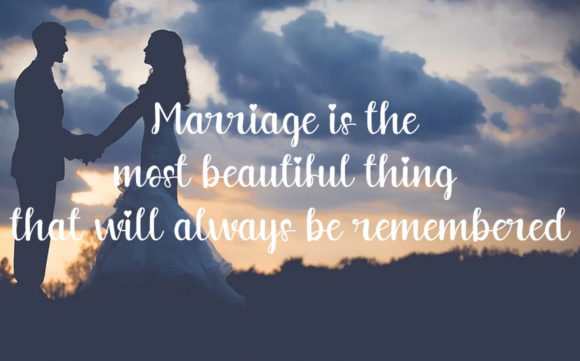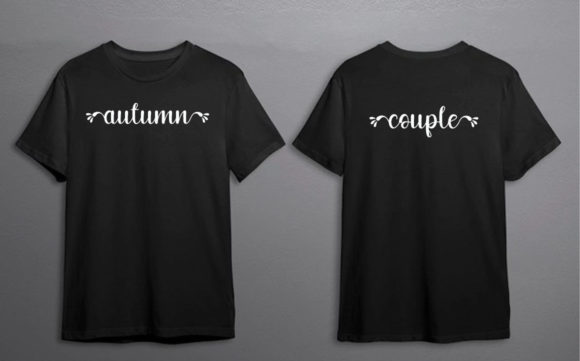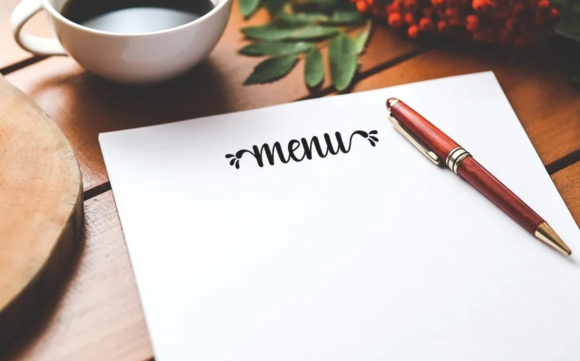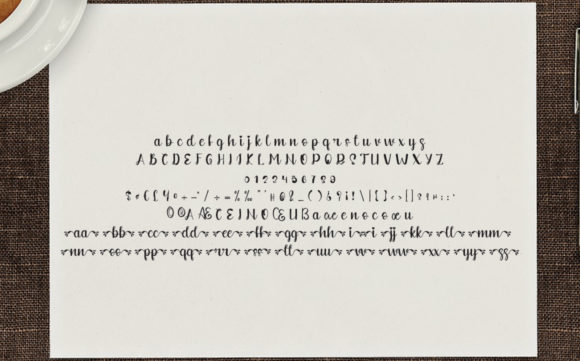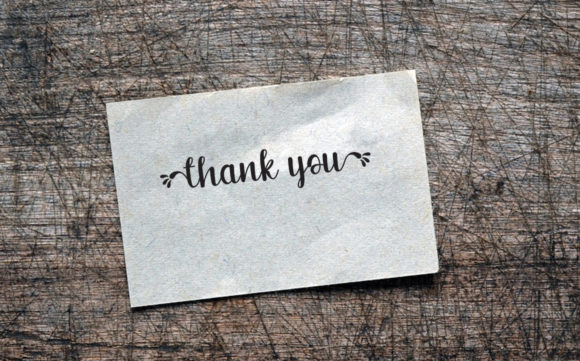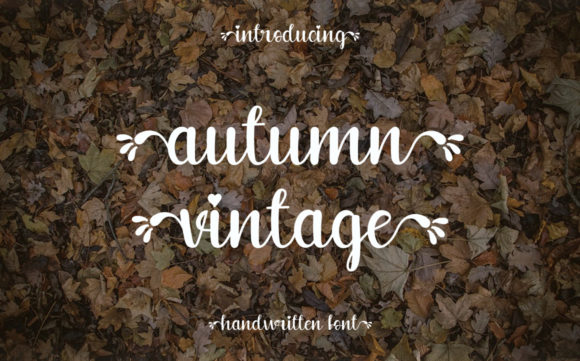
Introducing Autumn Vintage Font: Elevate Your Designs with Elegance
Are you a designer or crafter looking for a font that exudes sophistication and style? Look no further than Autumn Vintage Font, a stunning handwritten font that is sure to become a favorite in your collection. With its perfect blend of classic calligraphic influences and modern freshness, this font is ideal for a wide range of design projects.
The Beauty of Autumn Vintage Font
Autumn Vintage Font is a masterfully designed font that boasts an exquisite, elegant feel. Its handwritten style is reminiscent of traditional calligraphy, yet it has a contemporary edge that makes it perfect for modern designs. The font’s unique charm lies in its ability to evoke a sense of nostalgia and sophistication, making it perfect for projects that require a touch of luxury.
One of the standout features of Autumn Vintage Font is its PUA (Private Use Area) encoding. This means that you can easily access all of the font’s glyphs and swashes, giving you greater flexibility and creative control over your designs. With PUA encoding, you can effortlessly swap out characters and embellishments to create unique and eye-catching text styles.
Autumn Vintage Font is incredibly versatile, making it suitable for a wide range of design projects. Here are just a few ideas to get you started:
• Wedding Stationery: Create beautiful wedding invitations, save-the-date cards, and ceremony programs that exude elegance and sophistication.
• Branding and Packaging: Use Autumn Vintage Font to create stunning brand identities, product labels, and packaging that stands out from the crowd.
• Signage and Displays: Add a touch of luxury to your signage and display designs, whether it’s for a retail store, restaurant, or event.
• Digital Designs: Use Autumn Vintage Font to create gorgeous digital designs, such as social media graphics, blog headers, and email newsletters.
Why Choose Autumn Vintage Font?
With so many fonts available, why choose Autumn Vintage Font? Here are just a few reasons:
• Unique Style: Autumn Vintage Font has a distinctive, one-of-a-kind style that will set your designs apart from the rest.
• Ease of Use: The font’s PUA encoding makes it easy to access and use all of the glyphs and swashes, even for designers who are new to using decorative fonts.
• High-Quality Design: Autumn Vintage Font is designed to the highest standards, ensuring that it looks beautiful and elegant in any design.
Autumn Vintage Font is a truly exceptional font that deserves a place in every designer’s collection. With its exquisite, elegant style and PUA encoding for easy access, this font is perfect for a wide range of design projects. Whether you’re a seasoned designer or just starting out, Autumn Vintage Font is sure to become a favorite. So why wait? Download Autumn Vintage Font today and start elevating your designs with elegance and sophistication.
Key Features of Autumn Vintage Font
• Exquisite handwritten font with classic calligraphic influences
• PUA encoded for easy access to glyphs and swashes
• Contemporary and fresh feel
• Perfect for wedding stationery, branding, packaging, signage, and digital designs
• Unique and distinctive style
• Easy to use, even for designers new to decorative fonts
• High-quality design